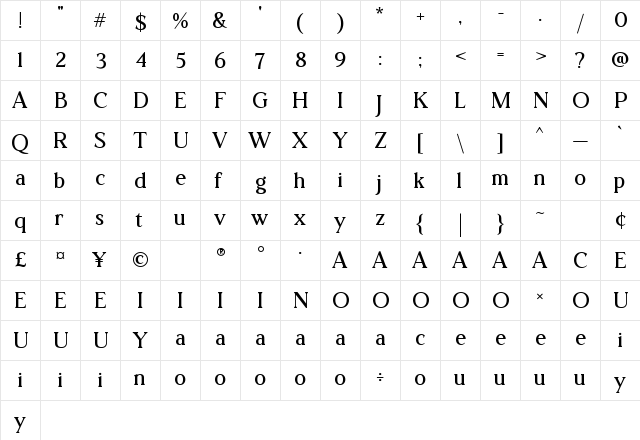
SocheliaDEMO Regular
| Foundry | Type Combo Studio |
| Designer | Iqbal Habibi |
Design Context for SocheliaDEMO Typeface
SocheliaDEMO takes a measured approach to typography — its balanced proportions and neutral character make it a reliable workhorse for both digital and print work.